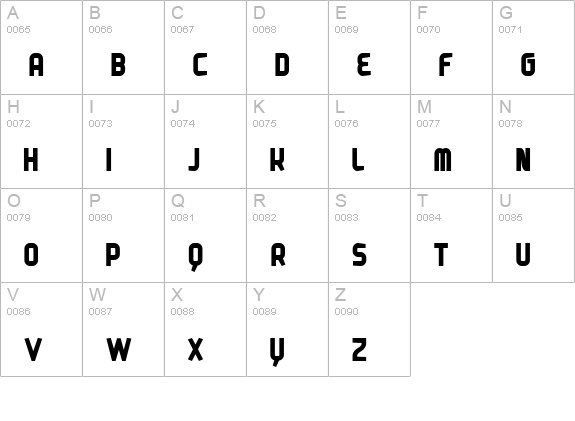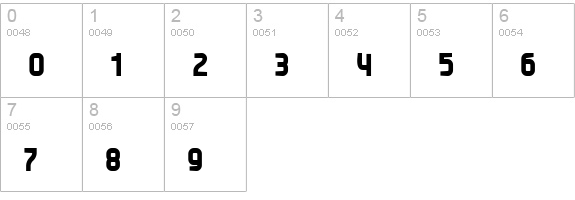
Danbold Font Details
Introducing Danbold, a captivating and versatile font that effortlessly combines modern flair with timeless elegance. This sophisticated typeface is designed to make a bold statement in any project, whether it be for branding, editorial design, or advertising. With its clean lines and distinct letterforms, Danbold exudes confidence and professionalism. Each character is meticulously crafted to ensure legibility and readability, even at smaller sizes. The balanced letter spacing and carefully chosen proportions lend a harmonious and pleasing aesthetic to every word. What sets Danbold apart is not only its aesthetic appeal, but also its accessibility. This remarkable font is offered to you completely free of charge, allowing you to enhance your designs without breaking the bank. Thanks to FontsMarket.com, you can easily download Danbold and incorporate it seamlessly into your creative endeavors. Whether you are a graphic designer, a web developer, or a creative enthusiast, Danbold is a versatile tool that will effortlessly elevate your projects. Its versatility allows it to adapt to various design styles, from modern and minimalistic to bold and expressive. The possibilities are endless with Danbold, as it effortlessly adds a touch of sophistication and professionalism to any typographic composition. Don't miss out on this exceptional opportunity to enhance your designs with Danbold. Download it for free today at FontsMarket.com and unlock a world of creative possibilities. Elevate your projects to new heights with this remarkable font that exudes style, elegance, and professionalism. Danbold is your key to captivating and impactful typography.